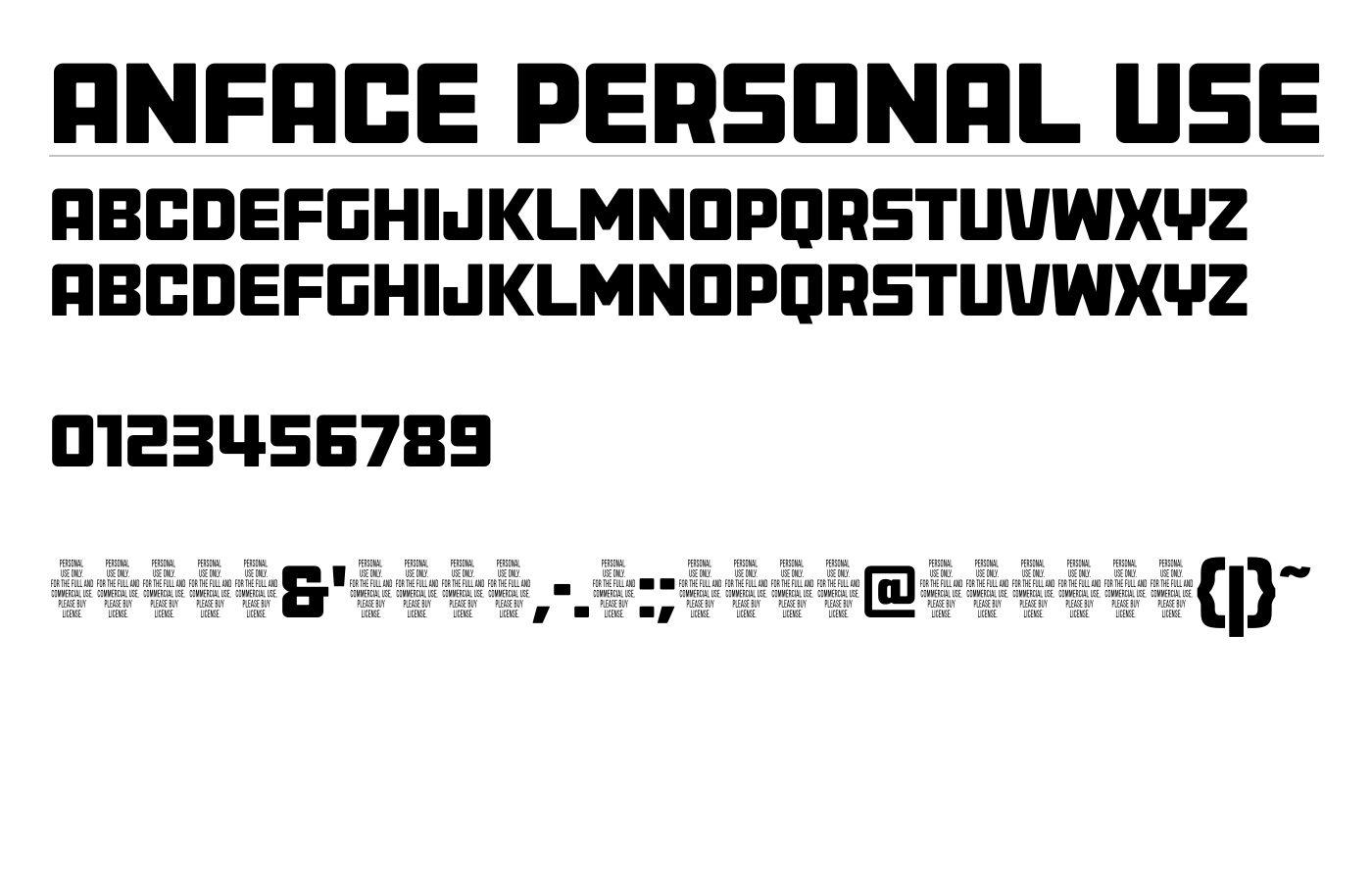
Anface Personal Use Font is a bold, geometric sans serif typeface characterized by its heavy weight and blocky, squared letterforms. With a strong, condensed appearance and uniform stroke width, it conveys a modern, industrial feel that works well for impactful headlines, logos, and branding where a sturdy, confident look is desired. This font is ideal for designs seeking a contemporary, tech-inspired vibe with a straightforward and assertive personality.
Anface Personal Use Font
About Anface Personal Use Font
| Font family | Anface Personal Use Font |
| Designer | Andrii Shevchyk |